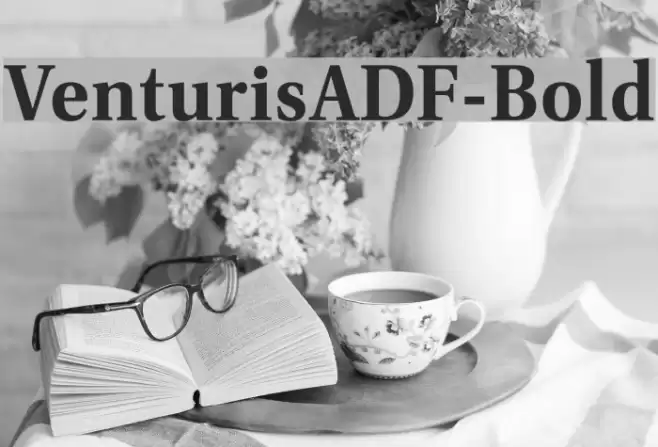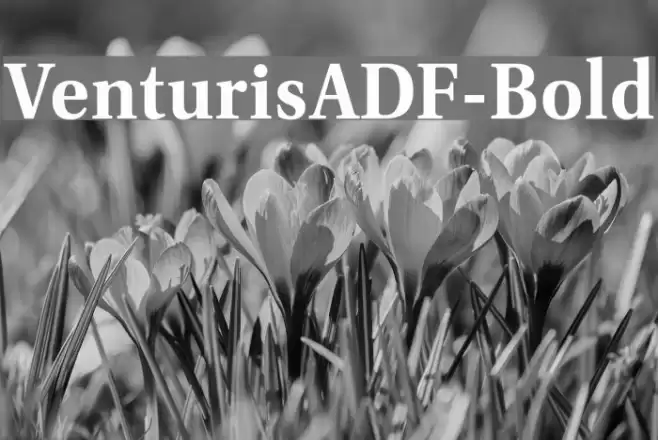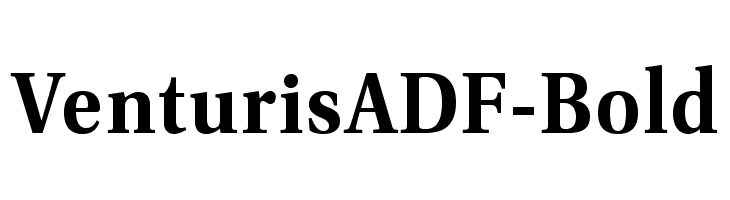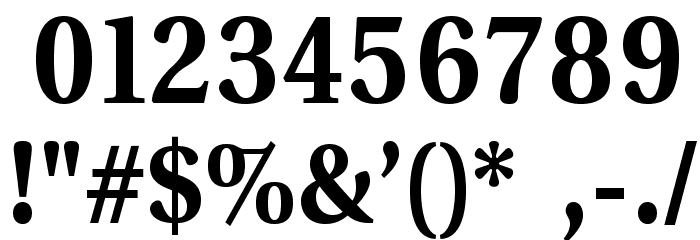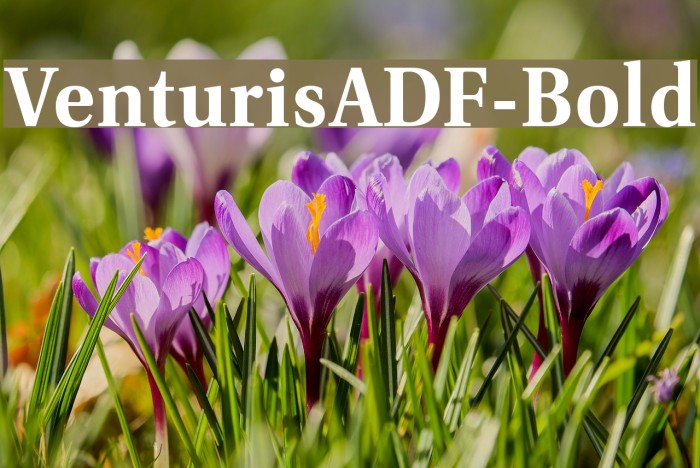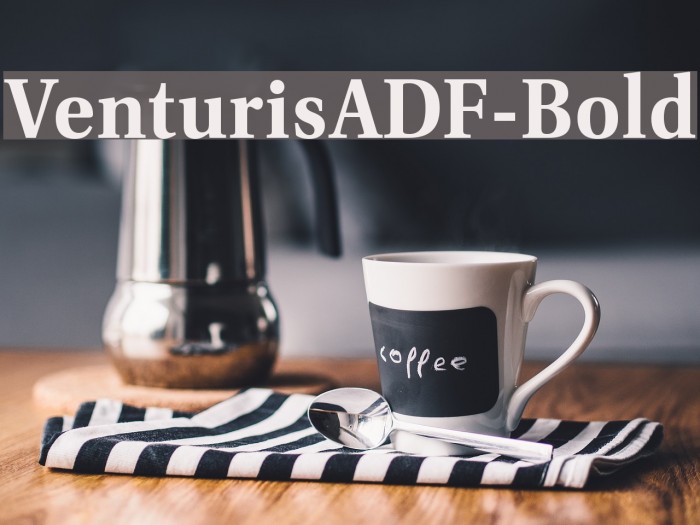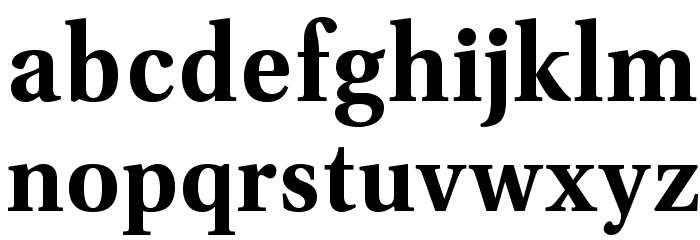
VenturisADF-Bold Font
VenturisADF-Bold Description
This typeface exhibits a classic serif style with bold, strong strokes that convey a sense of authority and tradition. The serifs are pronounced, adding a touch of elegance and readability, making it suitable for both print and digital media. The uppercase letters are well-proportioned, while the lowercase letters maintain a consistent height, ensuring clarity and balance. The numerals are distinct and easy to read, complementing the overall design. Special characters are included, providing versatility for various applications.
A bold, classic serif typeface with strong strokes and pronounced serifs from Uncategorized fonts.
- Proposed Projects: Ideal for editorial design, book covers, formal invitations, and branding projects that require a traditional and authoritative look.
- Overall Style: Classic